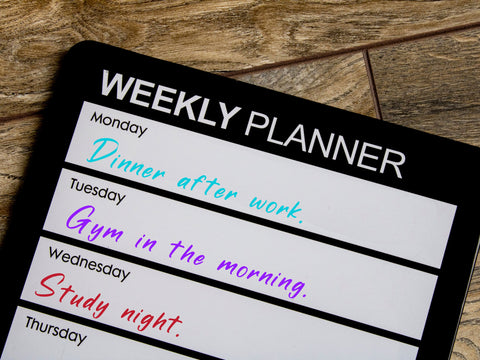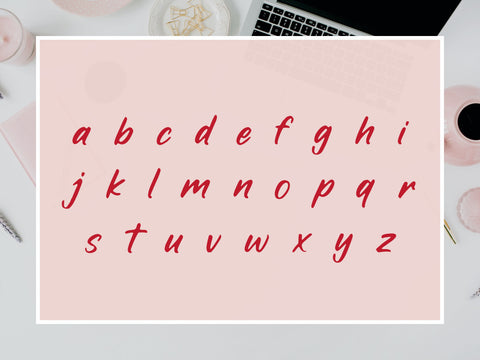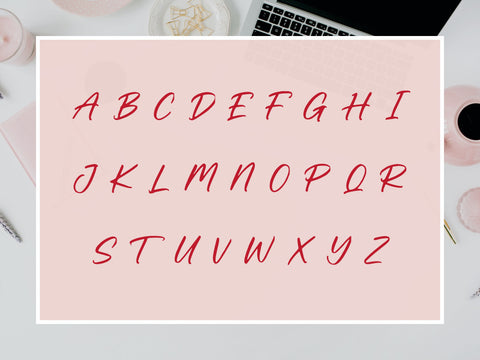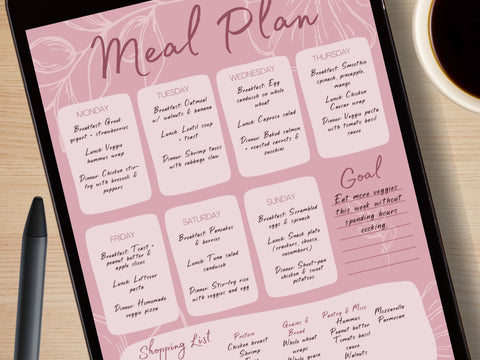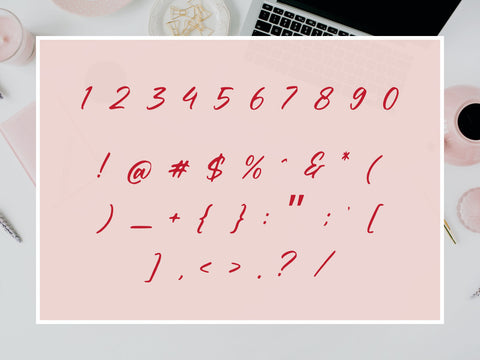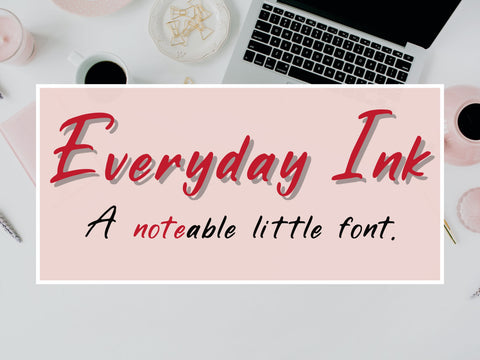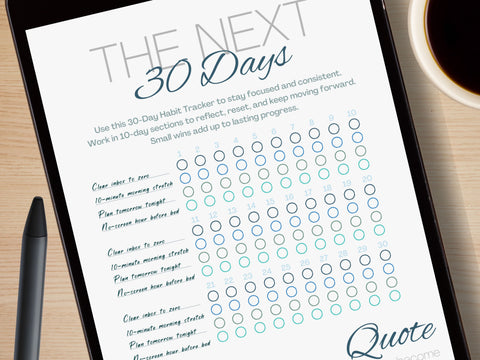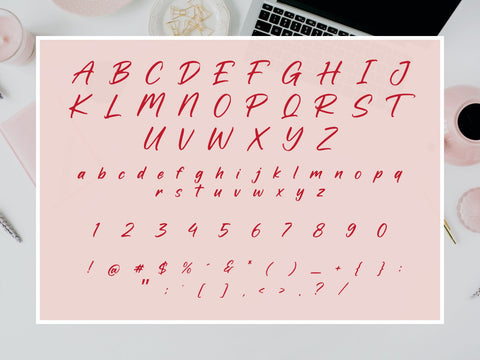
Everyday Ink Modern Handwritten Font
Everyday Ink is a casual handwritten typeface that feels like it was penned straight from your favorite journal. With its smooth, slightly slanted letters and natural flow, it’s perfect for planners, printables, notes, and creative projects that call for a personal touch.
Full uppercase and lowercase alphabet
Numbers and basic punctuation
Perfect for: ✏️ Planner pages & journals 📝 Checklists & templates 💌 Cards, quotes & stationery 🪶 SVG crafts & print projects
Whether you’re jotting down goals, labeling your workspace, or designing a cozy printable, Everyday Ink adds a warm, handwritten charm to everything you create.